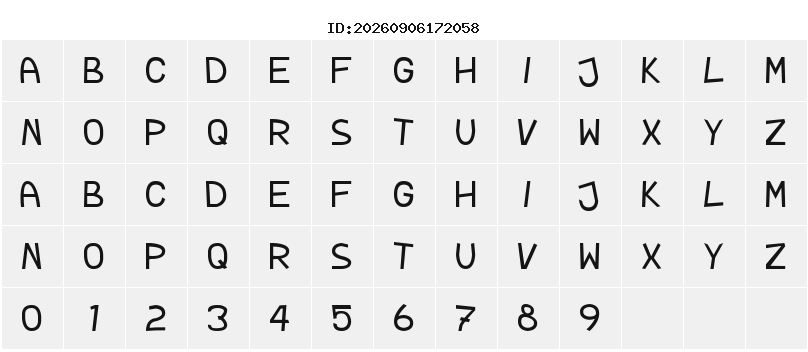
About TPF Rubber Ducky.ttf
TPF Rubber Ducky.ttf is a modern, elegant sans-serif font designed for ultimate readability and visual harmony. Perfect for branding, headlines, web design, and print materials.